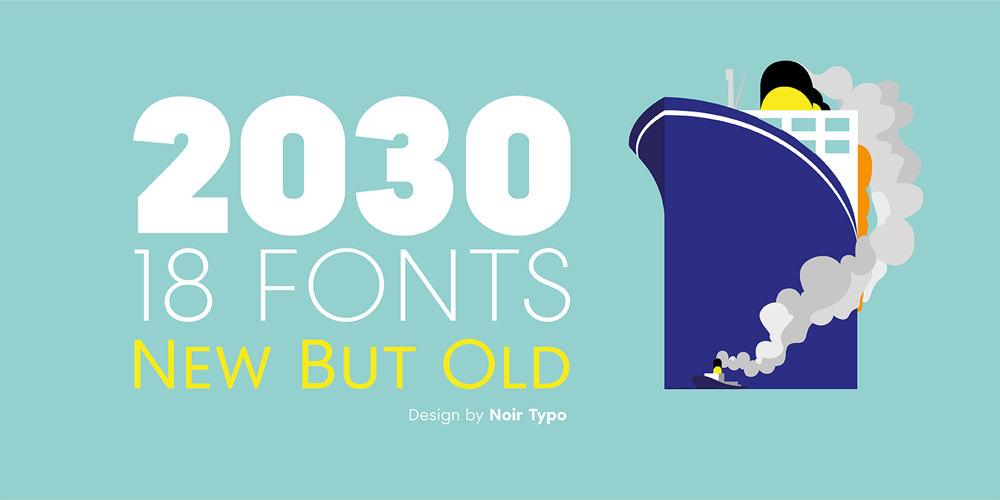
2030 Font Family was designed by Olivier Gardera and published by Noir Typo. 2030 contains 18 styles and family package options. 2030 font is inspired by the typography of the early 20th century, the Futura of Paul Reener, Cassandre and Charles Loupot’s works and, on a broader level by modernism and art déco mouvements. Geometric, with classicals proportions, this typefaces is a re-interpretation, in a actual form, of the alphabets from this period. The lines are straight, but the letters are easy to read and nice to watch thanks to optical corrections. Build with 9 weights of 700 glyphs, italics and small caps.